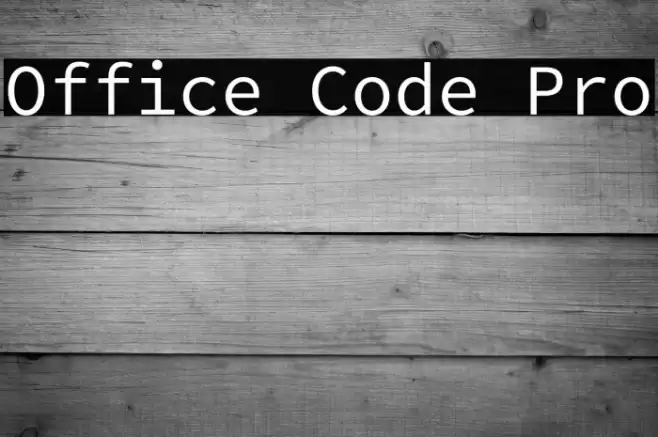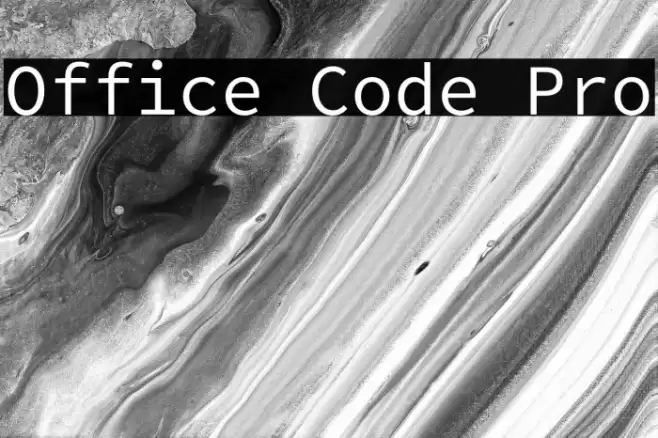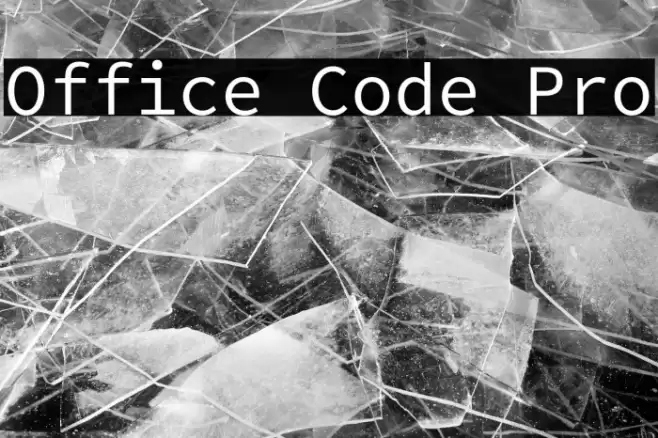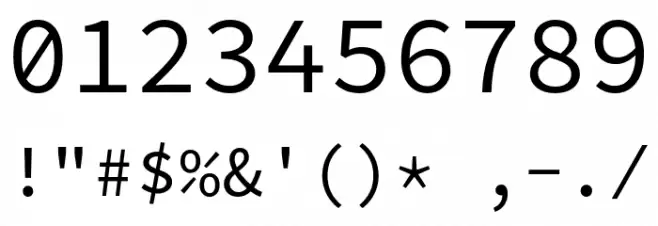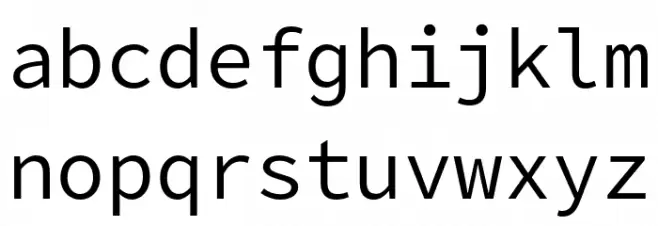
Office Code Pro Font
Office Code Pro Description
This typeface presents a clean and modern aesthetic, characterized by its monospaced design. Each character occupies the same horizontal space, making it ideal for coding and technical documentation. The strokes are uniform, with a medium contrast that ensures readability across various sizes. The font features a straightforward and minimalist style, with rounded edges that soften its appearance, adding a touch of approachability. Its simplicity and clarity make it suitable for both digital and print media, ensuring versatility in its application.
A modern, monospaced typeface with clean lines and uniform spacing from Sans Serif fonts.
- Proposed Projects: Ideal for coding environments, technical documentation, and any project requiring precise alignment of text.
- Use Case: Coding, Technical documentation, Digital media